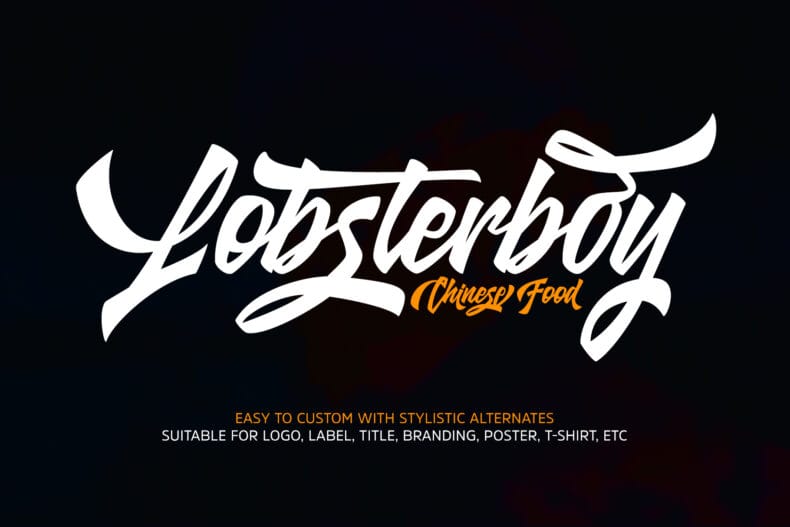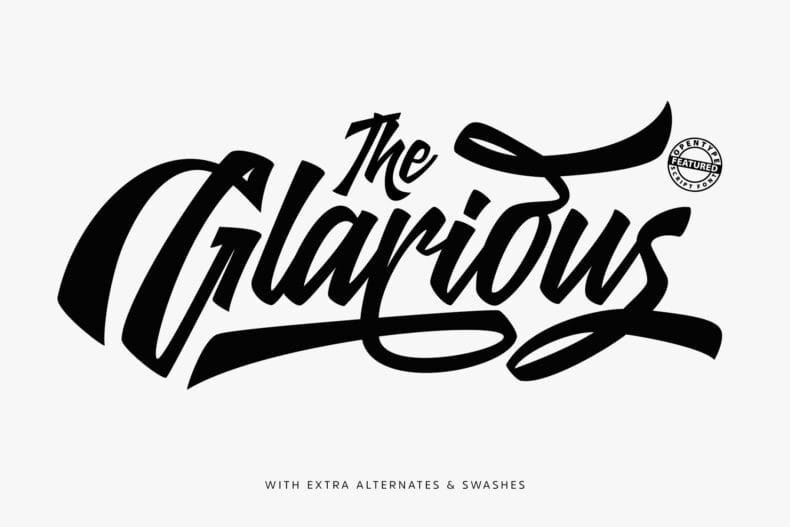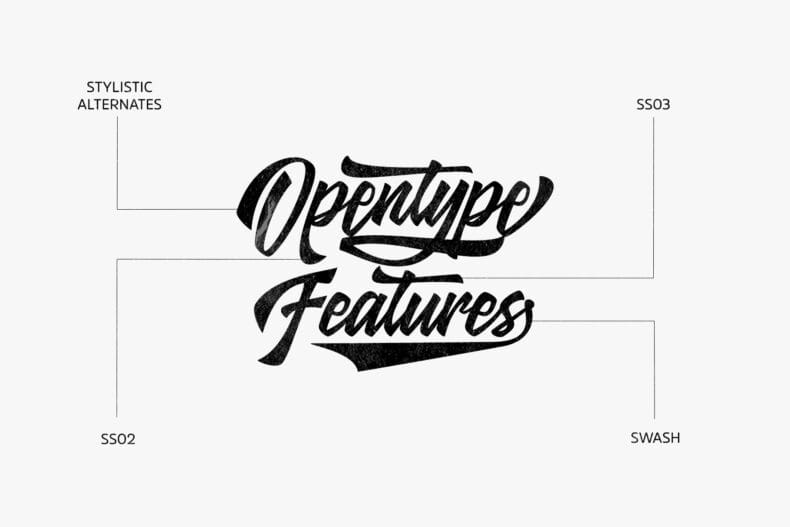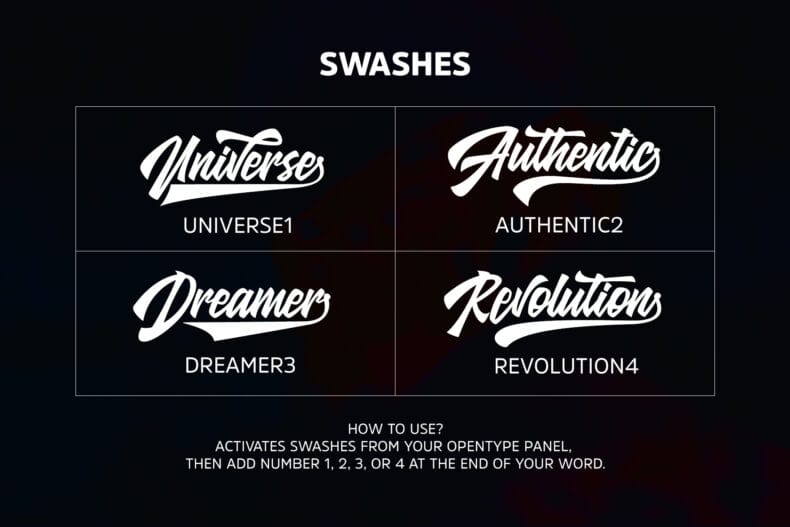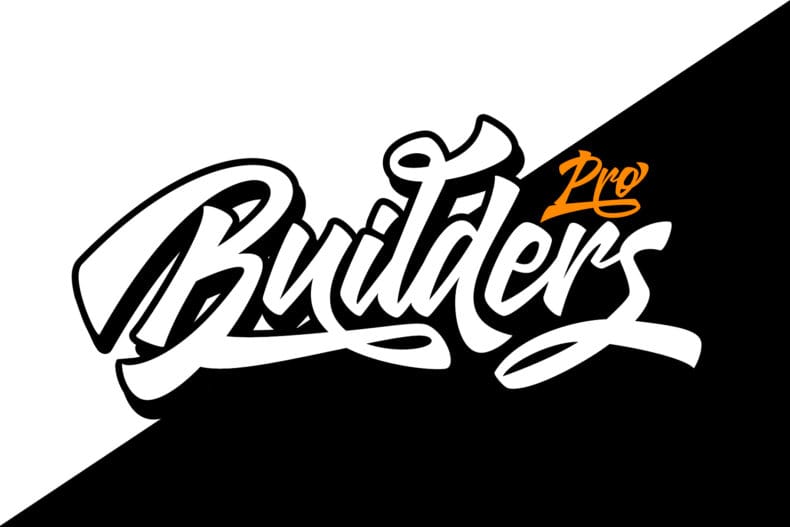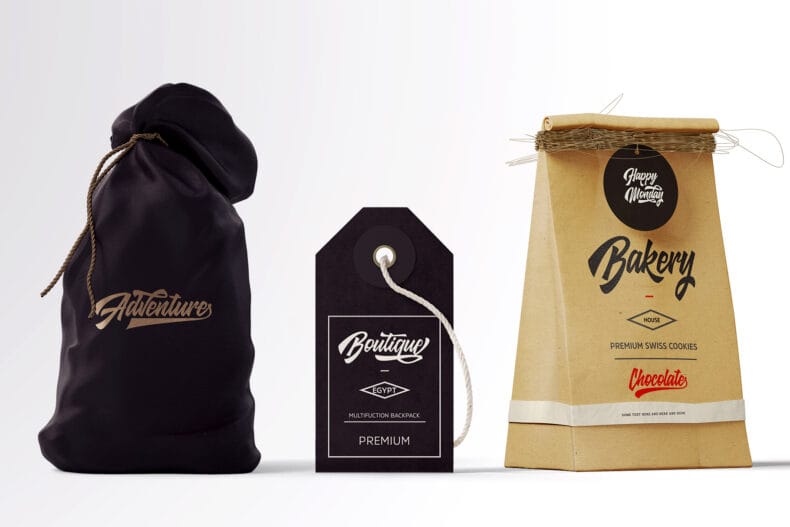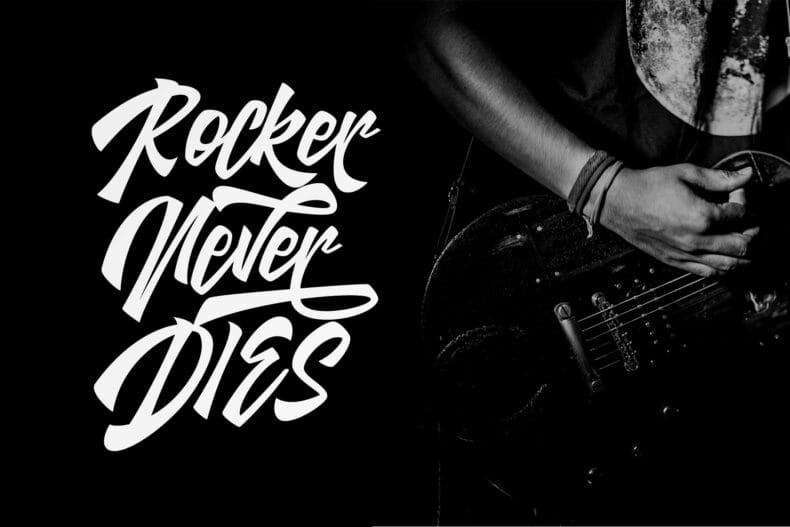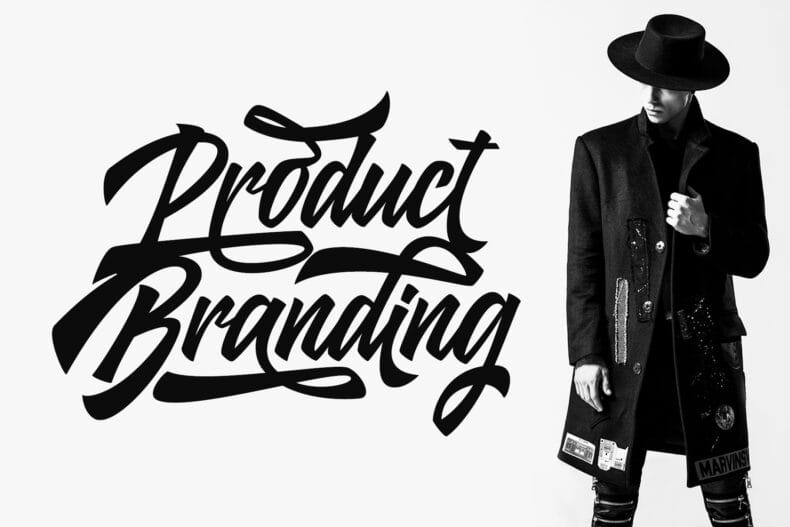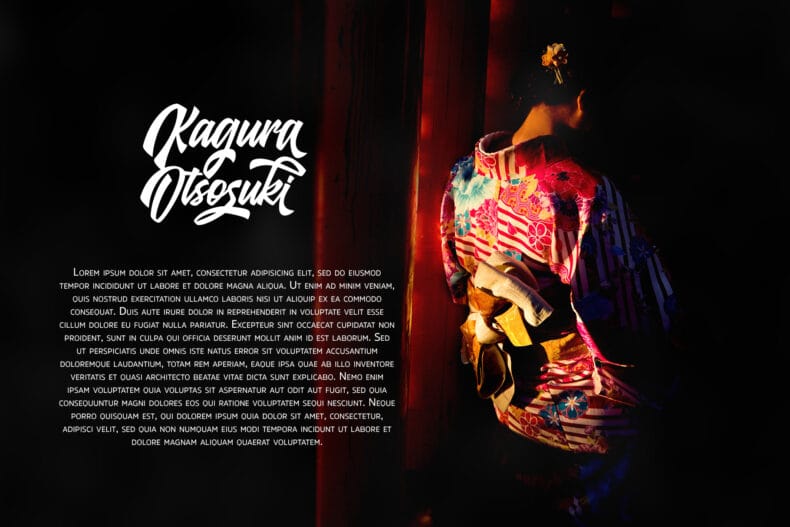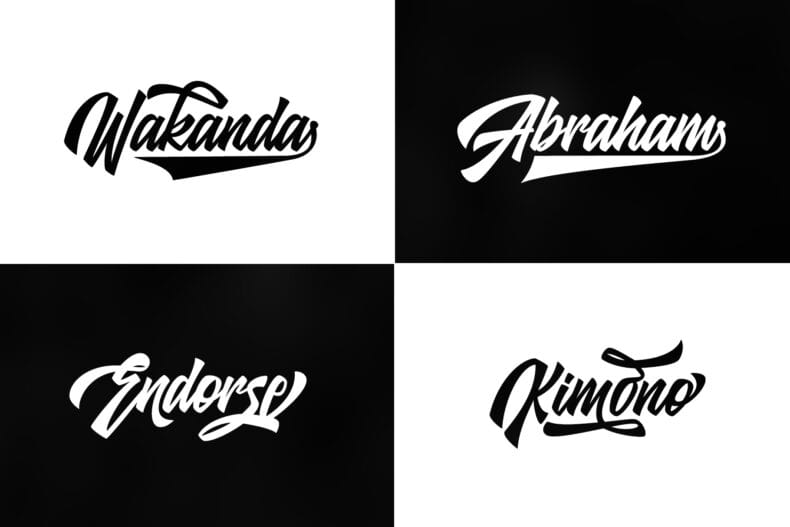
Glarious is a hand-lettered script font with alternates for uppercase and lowercase letters, plus swashes. Explore it for customized-looking wordmarks and expressive packaging titles.
Glarious gives you options for shaping individual words through its alternate forms. Try different letters and swashes in a brand name, apparel graphic, or invitation heading, choosing details that support the composition rather than decorating every position.
The font includes uppercase and lowercase letters, numerals, punctuation, symbols, multilingual characters, and PUA encoding. Preview your wording, then explore the available OpenType forms in your design application.